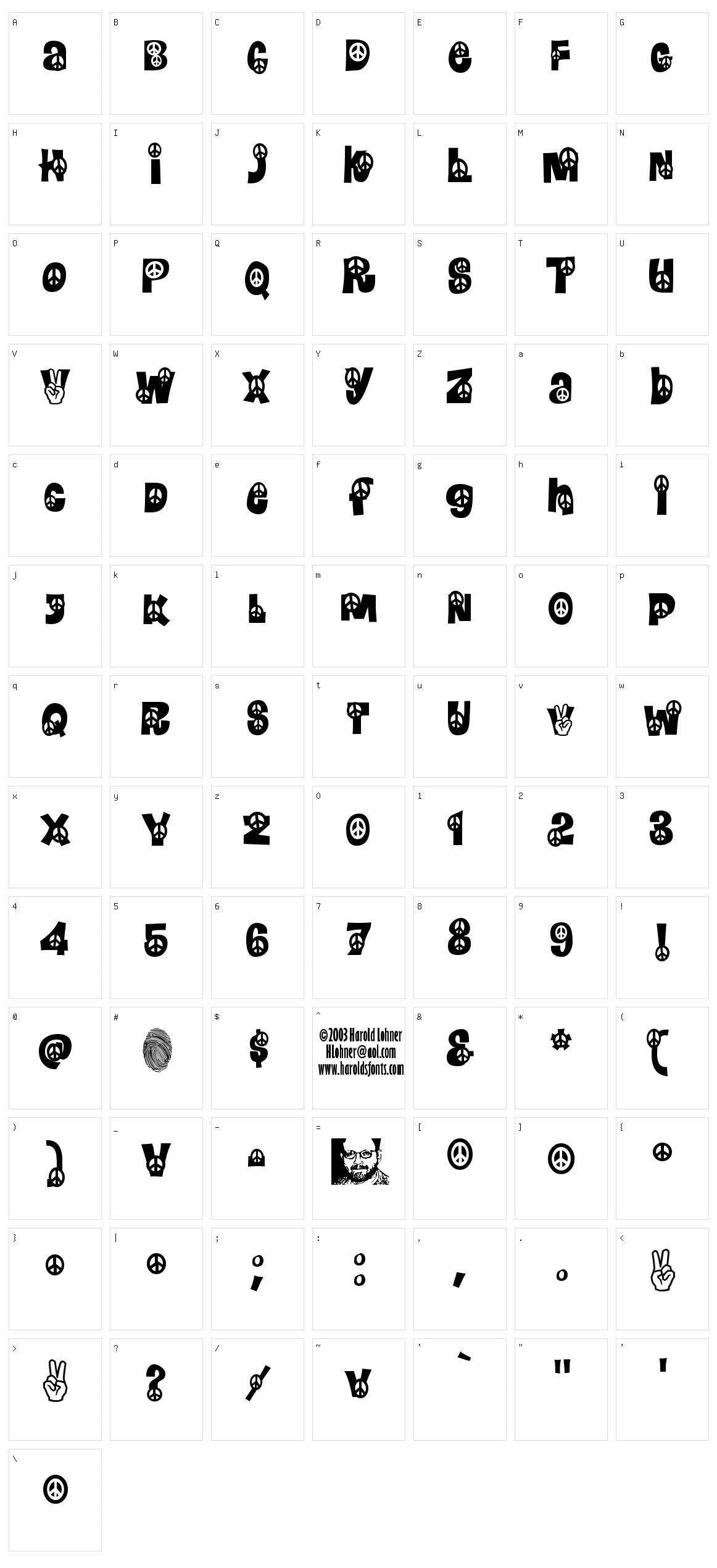
The free font Peace is carefully designed by Harold's Fonts, showcasing a thoughtful balance of creativity and usability and falls under the Groovy font style. When you download the ZIP file, it contains only 27.44 KB of font files, making it lightweight and quick to download. Please review the license details below to understand permitted usage and distribution rights. If license information is not available, we recommend using this font for personal projects only or contacting the author directly for commercial usage permissions.